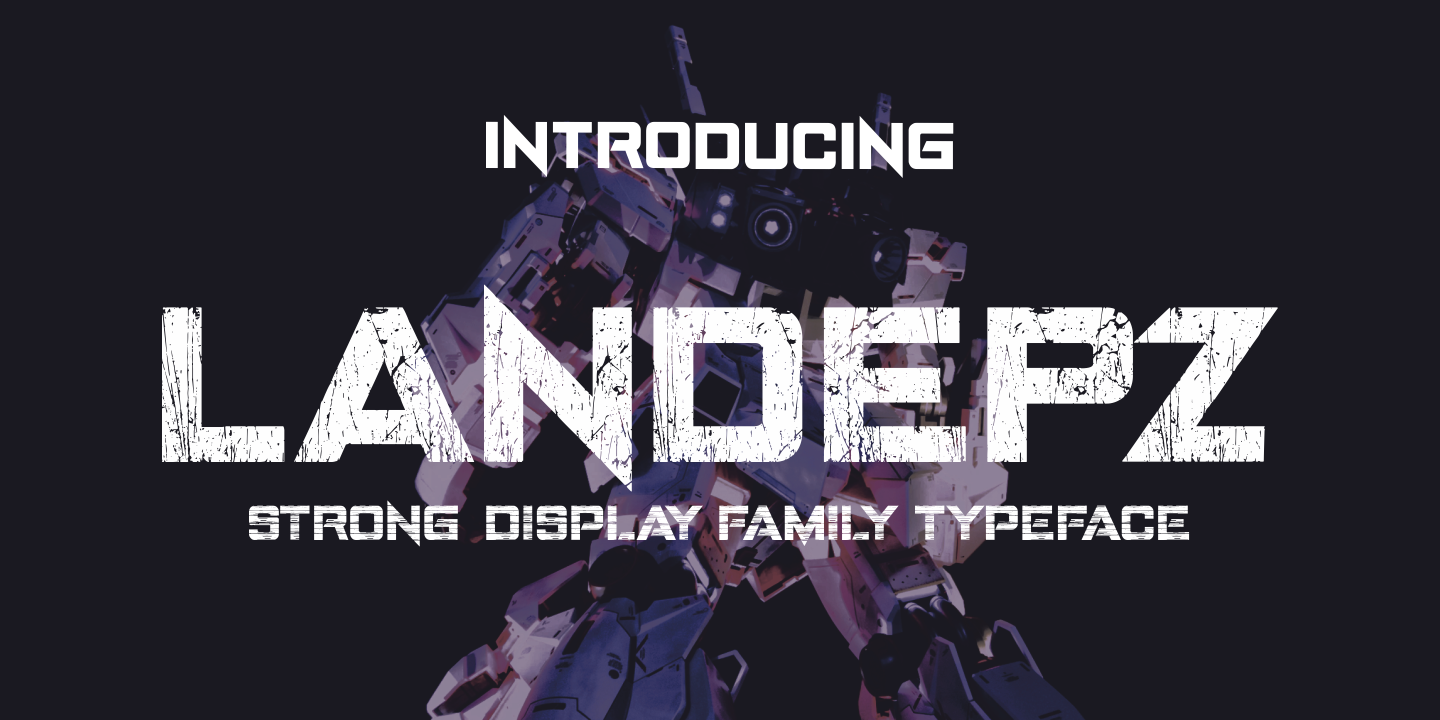
Landepz Font is perfect for branding projects, logo design, poster creation, website headers, social media graphics, business cards, packaging design, and modern typography applications that require a contemporary aesthetic.
What makes Landepz Font exciting is its unique blend of modern sophistication and versatility. This typeface offers exceptional readability while maintaining a distinctive character that sets your designs apart from the competition. The carefully crafted letterforms provide excellent legibility across both digital and print media, making it an ideal choice for professional designers and creative enthusiasts alike.
The Landepz Font family includes multiple weights and styles, ranging from light to bold variations, along with italic versions that complement the main typeface. Each variant maintains the font's core personality while offering different levels of visual impact for various design needs.
Whether you're working on corporate identity, editorial design, or creative campaigns, Landepz Font Free Download delivers outstanding performance and visual appeal. The font's clean lines and balanced proportions make it suitable for both headline and body text applications. Its modern approach to typography ensures your projects maintain a fresh, contemporary look that resonates with today's design trends.